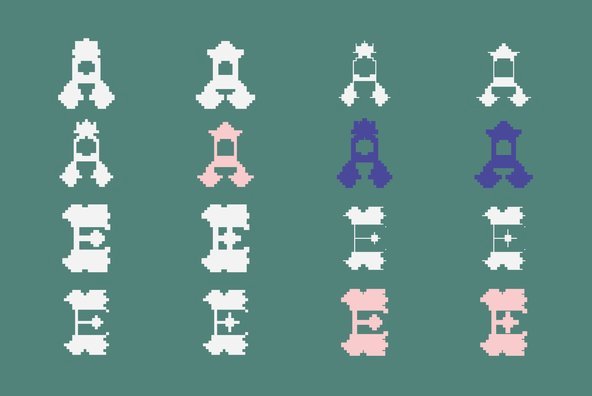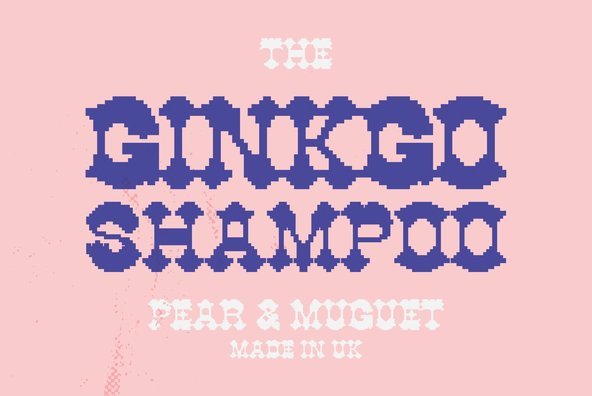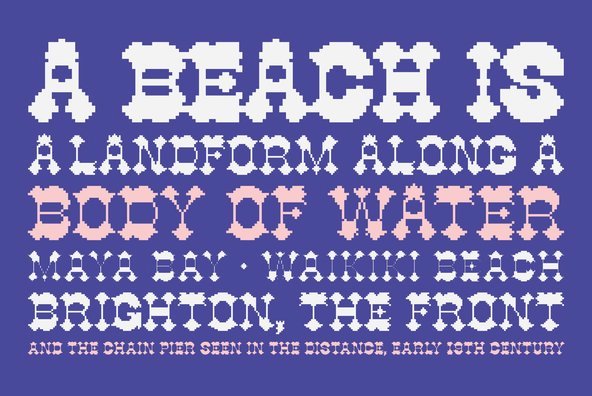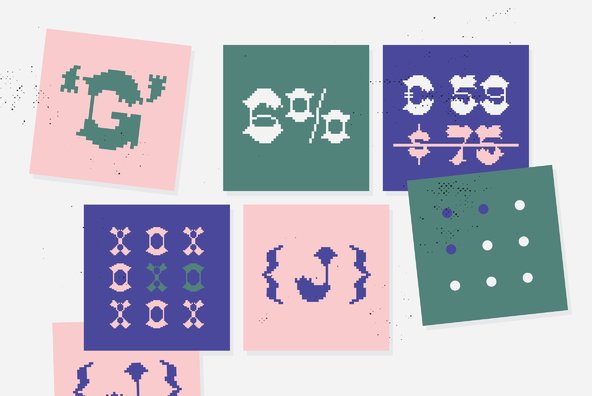
YWFT Bitwood
If Pac Man was programmed by Sergio Leone, YWFT Bitwood would provide the commentary. One-of-a-kind, obscure, and sometimes downright obscene, YWFT Bitwood is a unique mashup of old-west saloon type and modern-day game console screens. It takes the idea of woodtype slabs forward through time into a bitmap pixel display font. Syntax error, pard! YWFT Bitwood is best used for display and header uses, but you could easily use it for body content and make your content editor go blind. YWFT Bitwood was converted to Opentype format in 2010. Designed exclusively by Michael Cina and YouWorkForThem.